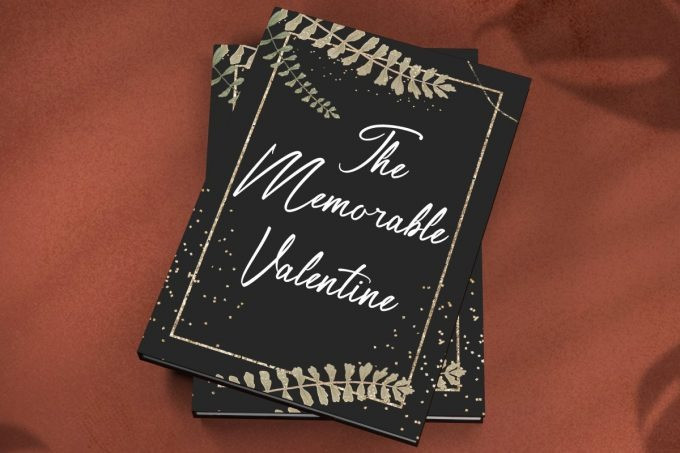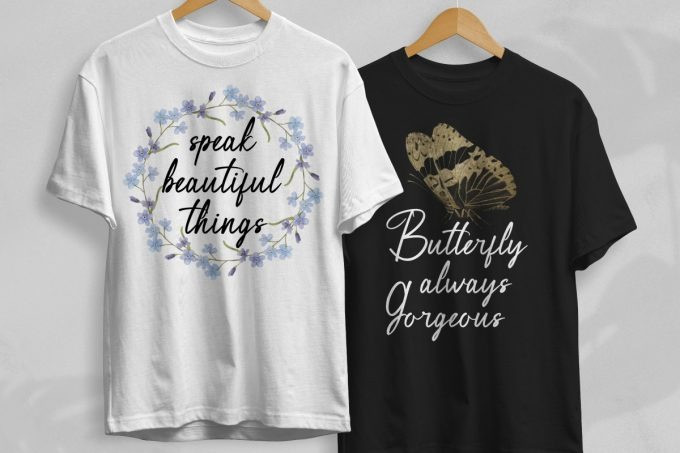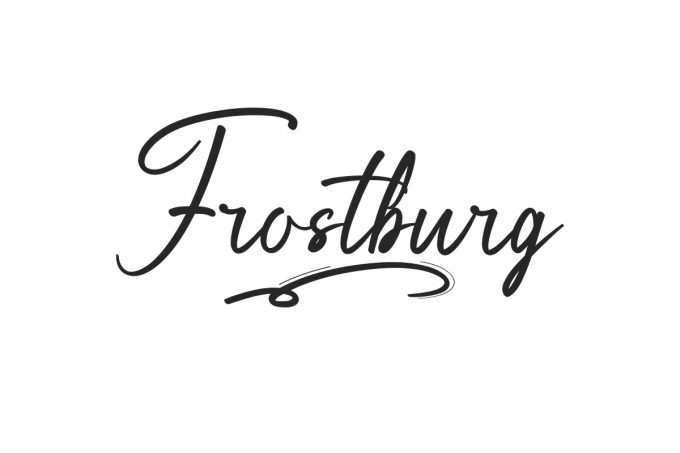
Shining Holiday Calligraphy Font
Hello, this time we want to introduce a new product. Shining Holiday is a calligraphic script font that comes with a lovely alternative character. mix of copper calligraphy in a handlettering style. Designed to convey an elegant style. Shocking Script is attractive because it is smooth, clean, feminine, sensual, glamorous, simple and very legible. Its classic style is very suitable to be applied to all types of formal items such as invitations, labels, menus, logos, fashion, make up, stationery, letterpresses, romantic novels, magazines, books, greeting / wedding cards, packaging, labels.